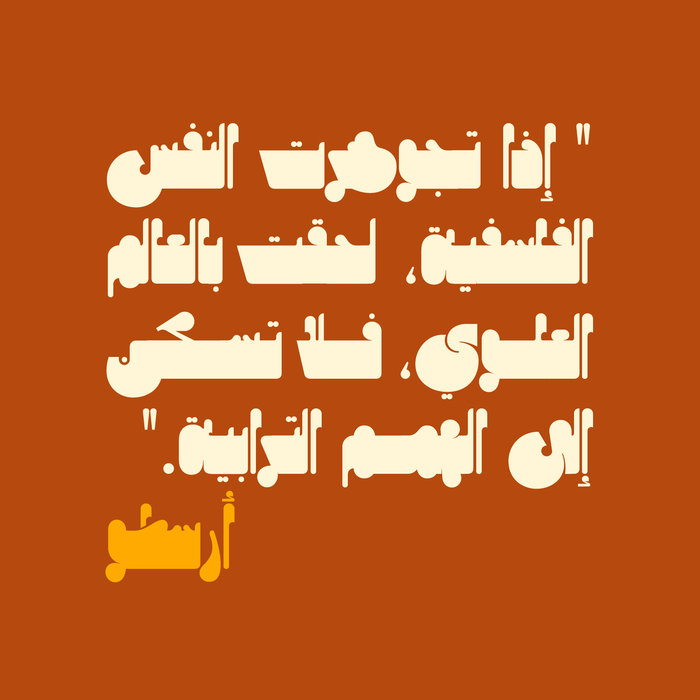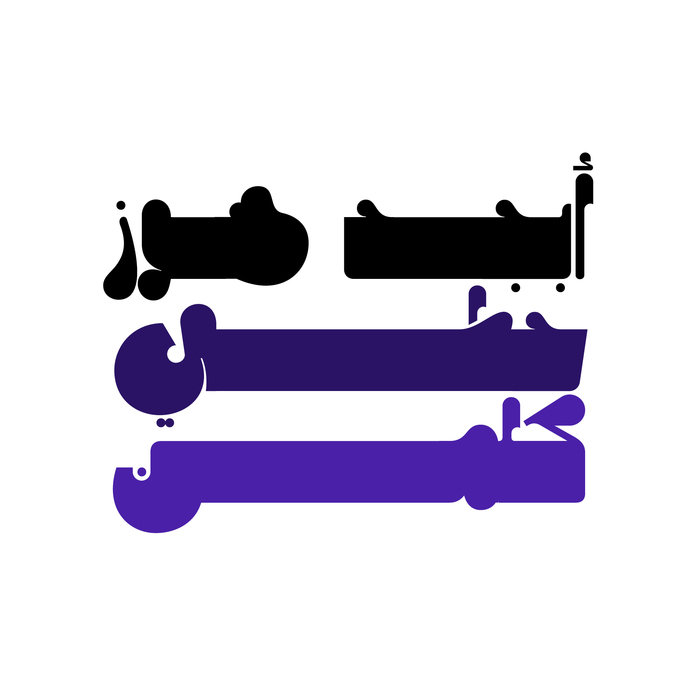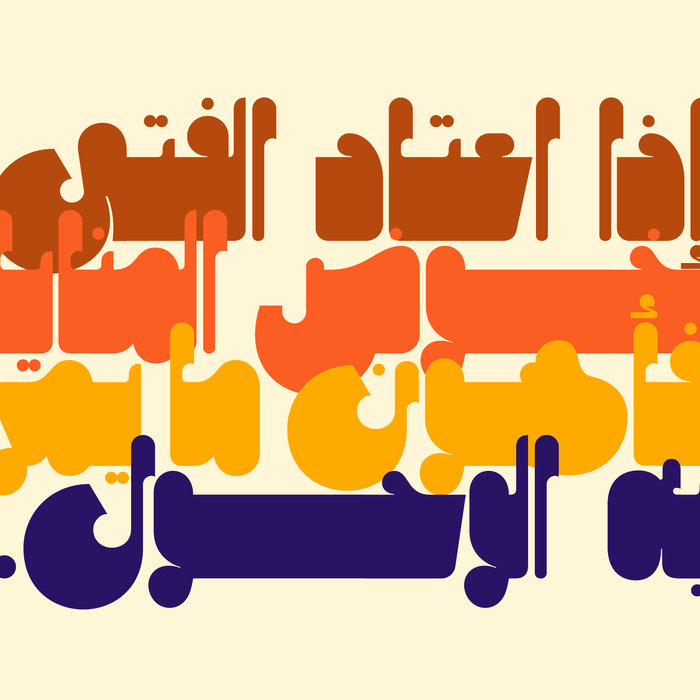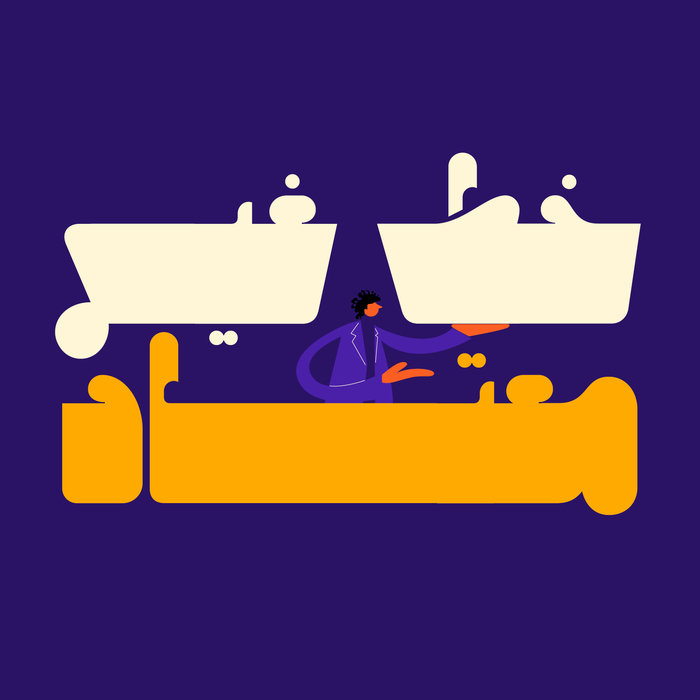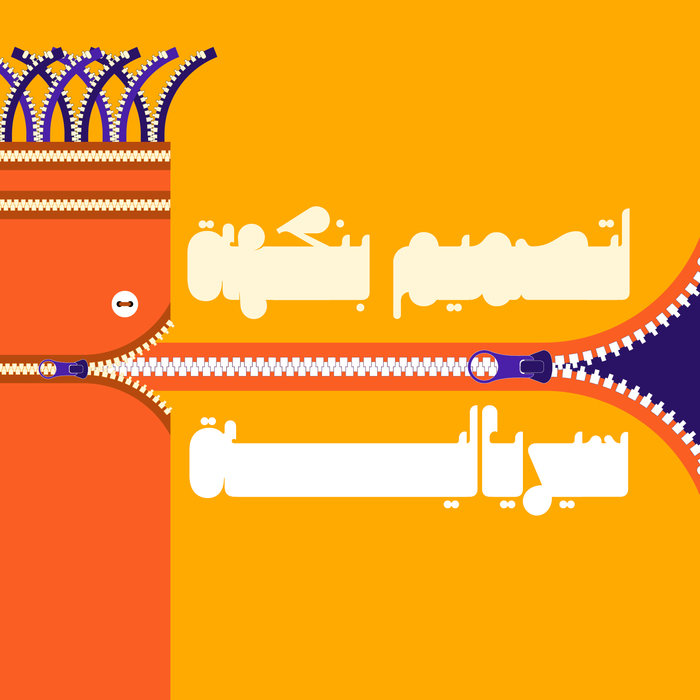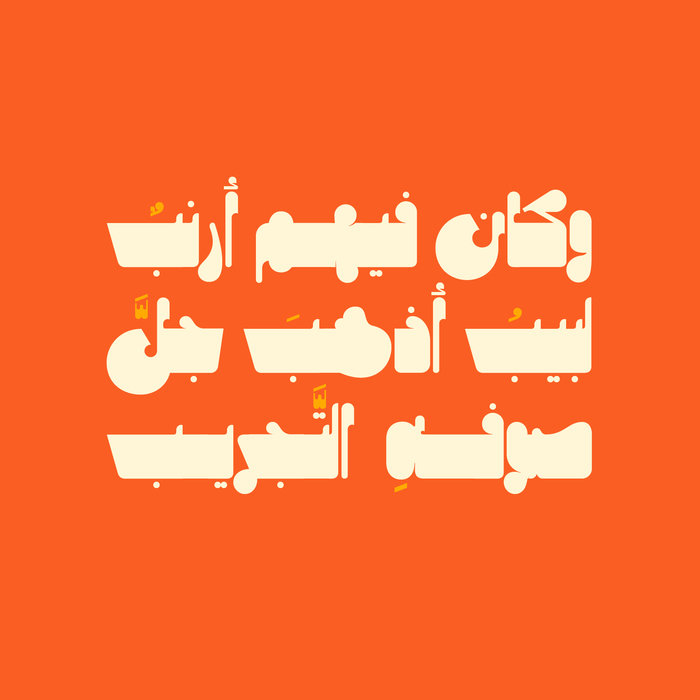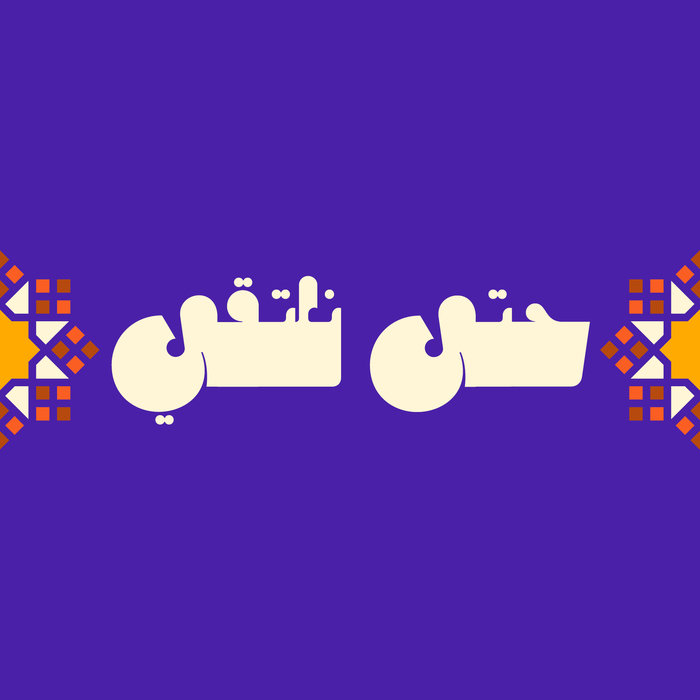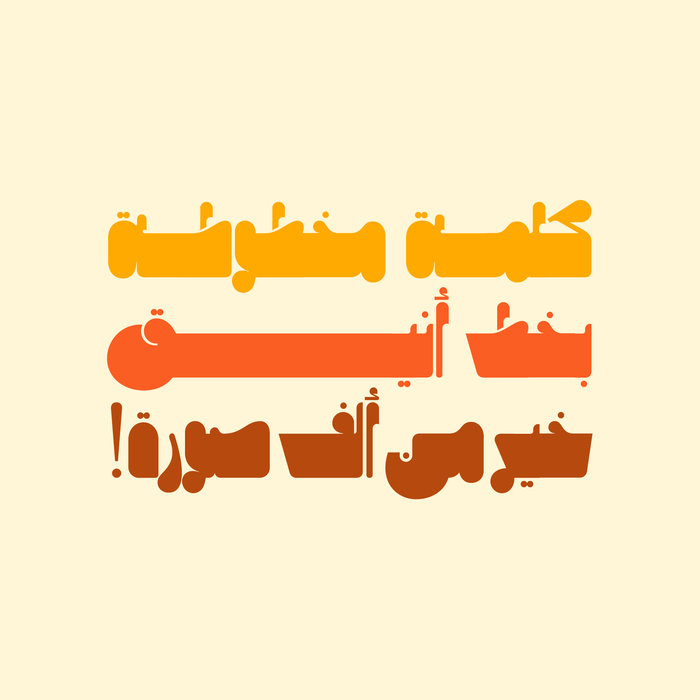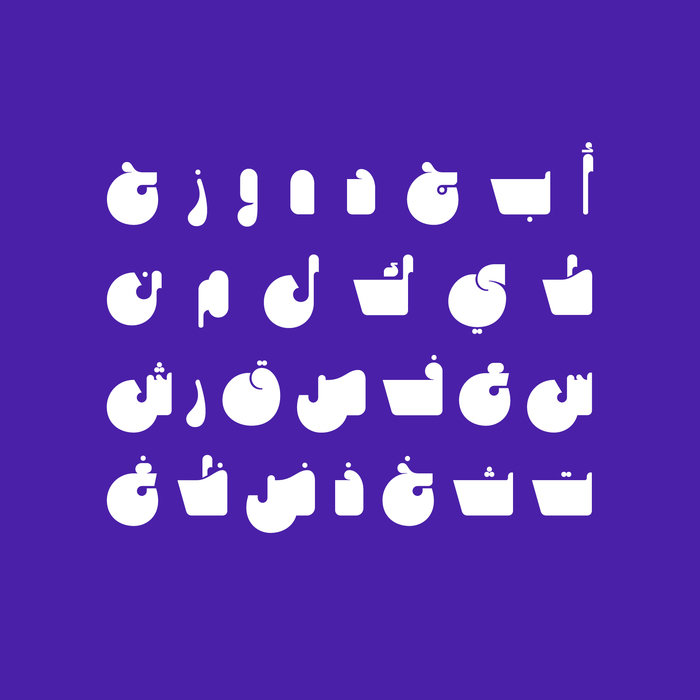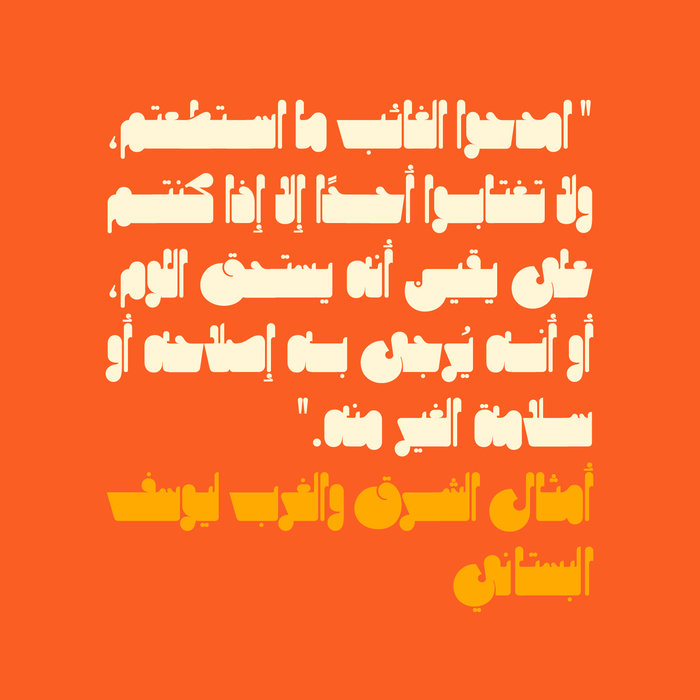
Mithqal - Arabic Font
Mithqal (which is the Arabic word for weight) is an Arabic display font that features a very heavy letterform structure. The design is inspired by both Neo-Islamic and Neosurrealism art movements. This font is suitable for logotypes and branding as well as creative titling.